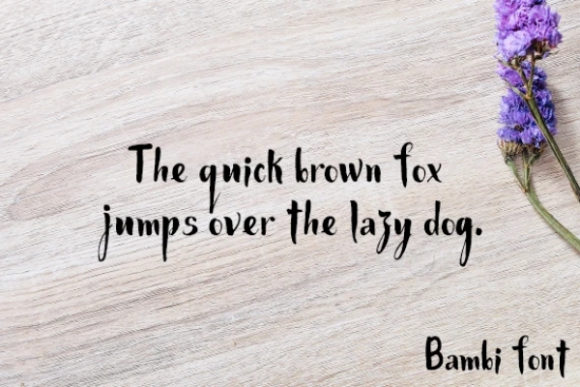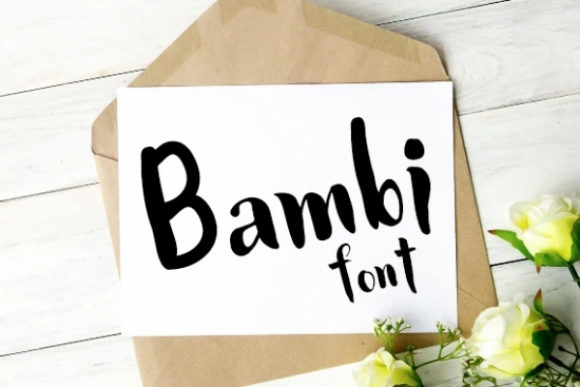
Bambi Font: Unleash Your Creativity with this Playful Display Font
Are you tired of using the same old fonts for your design projects? Look no further! Bambi Font is here to add a touch of whimsy and playfulness to your creations. This cute and casual display font is perfect for designers and crafters who want to make their work stand out. In this article, we’ll dive into the world of Bambi Font and explore its unique features, uses, and benefits.
What is Bambi Font?
Bambi Font is a display font that exudes a sense of fun and playfulness. It’s designed to resemble handwritten text, with a dash of doodles and illustrations. The font comes with a range of beautiful doodles that can be used to add a personal touch to your designs. Whether you’re working on a project for a client or creating something for your own brand, Bambi Font is sure to bring a smile to your face.
Unique Features of Bambi Font
So, what makes Bambi Font so special? Here are a few of its unique features:
• Cute and Casual Design: Bambi Font has a relaxed, informal vibe that’s perfect for designs that need to feel friendly and approachable.
• Beautiful Doodles: The font comes with a range of doodles and illustrations that can be used to add visual interest to your designs.
• Playful Personality: Bambi Font has a unique personality that’s sure to shine through in your designs.
• Easy to Read: Despite its playful design, Bambi Font is easy to read, making it perfect for use in a variety of design projects.
Uses for Bambi Font
Bambi Font is a versatile font that can be used in a range of design projects, including:
• Branding and Packaging: Use Bambi Font to add a touch of personality to your brand’s packaging and marketing materials.
• Social Media Graphics: Bambi Font is perfect for creating social media graphics that need to stand out from the crowd.
• Invitations and Stationery: Add a touch of whimsy to your invitations and stationery with Bambi Font.
• Web Design: Use Bambi Font to create a playful and engaging website that reflects your brand’s personality.
Benefits of Using Bambi Font
So, why should you choose Bambi Font for your design projects? Here are a few benefits:
• Unique and Eye-Catching: Bambi Font is sure to grab attention and make your designs stand out.
• Time-Saving: With Bambi Font, you can create professional-looking designs in no time.
Tips for Using Bambi Font
Here are a few tips for getting the most out of Bambi Font:
• Experiment with Doodles: Don’t be afraid to get creative with the doodles that come with Bambi Font.
• Mix and Match: Try pairing Bambi Font with other fonts to create a unique look.
• Keep it Simple: Don’t overdo it – sometimes, less is more when it comes to using Bambi Font.
Font Name Bambi Font
Bambi Font is a playful and versatile display font that’s perfect for designers and crafters who want to add a touch of personality to their designs. With its cute and casual design, beautiful doodles, and easy-to-use features, Bambi Font is sure to become a favorite in your design toolkit. So why wait? Download Bambi Font today and start unleashing your creativity!